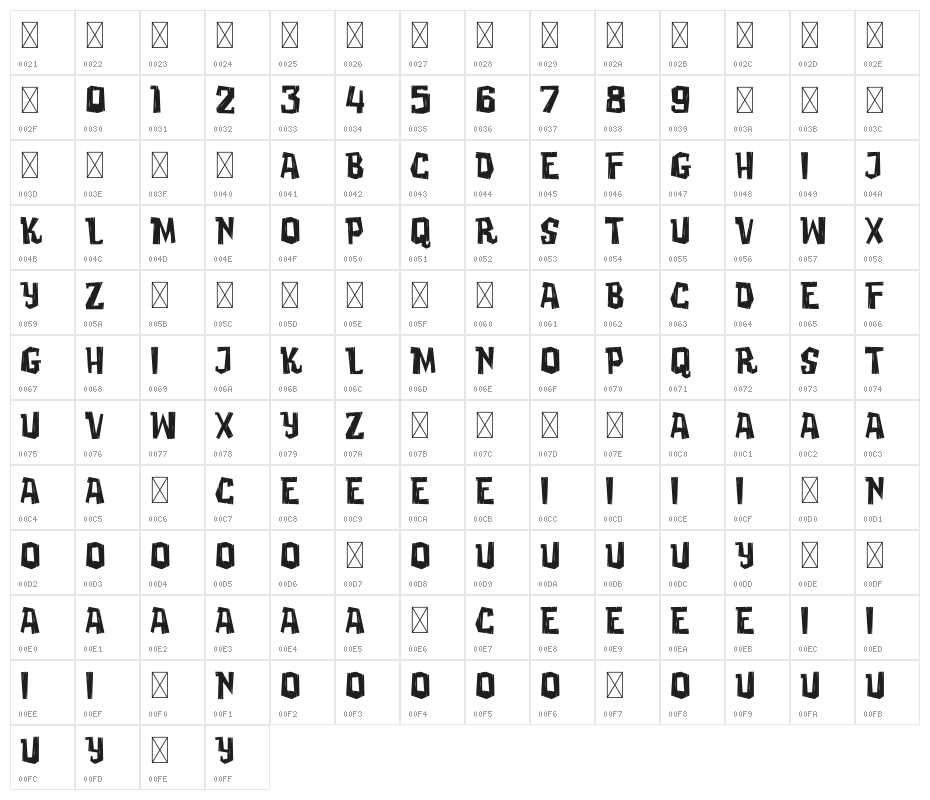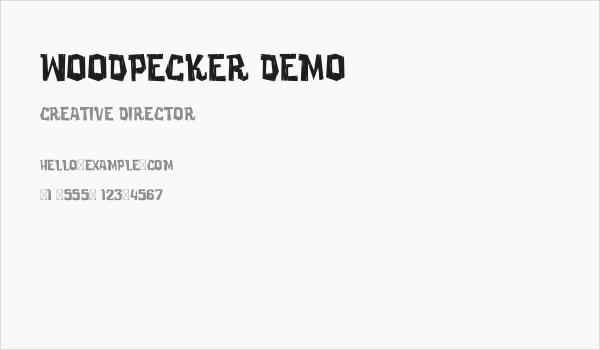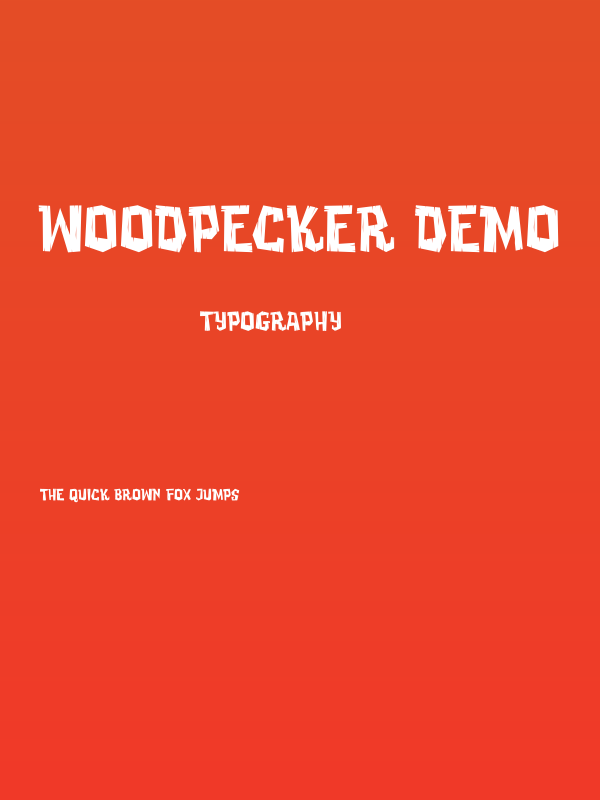
WOODPECKER Demo Font
WOODPECKER Demo Description
This font features a bold and dynamic style with a distinctly rugged and textured appearance. Each character is crafted with a jagged, almost woodcut-like effect, giving it a unique and eye-catching look. The uppercase and lowercase letters maintain a consistent design, with angular edges and a slightly irregular form that adds to its charm. The numerals follow the same aesthetic, ensuring a cohesive appearance across all characters. This font's distinctive style makes it ideal for projects that require a bold statement or a creative touch.
| Proposed Projects | Ideal for posters, album covers, branding materials, and any project needing a bold, artistic touch. |